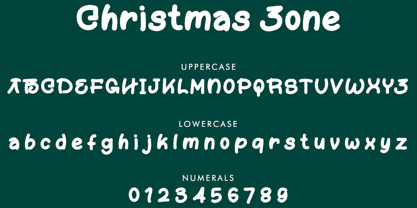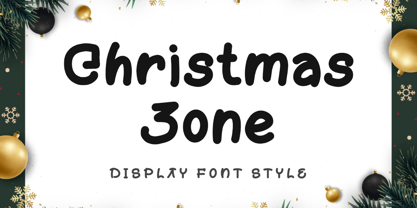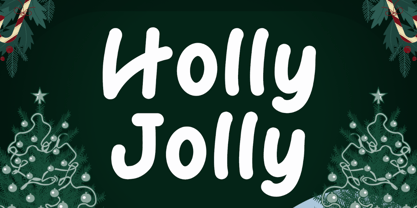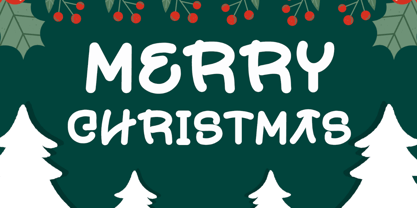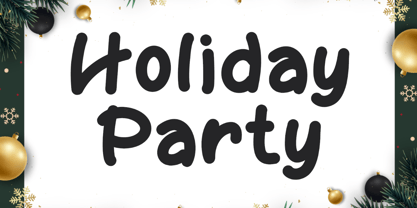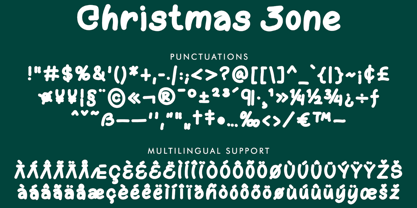
Christmas Zone Display
by Yoga Letter
The Christmas Zone Display Font Family was designed by Isroni Yoga Prasetya and published by Yoga Letter. Christmas Zone Display contains 1 styles.
"Christmas Zone" is a unique and fun display font. It features uppercase and lowercase letters, numbers, punctuation, and multilingual support. Perfect for Christmas, invitations, birthdays, holidays, vacations, prints, banners, logos, stickers, Halloween, comics, Procreate, sublimation, stickers and posters, social media, t-shirts, screen printing, and more.